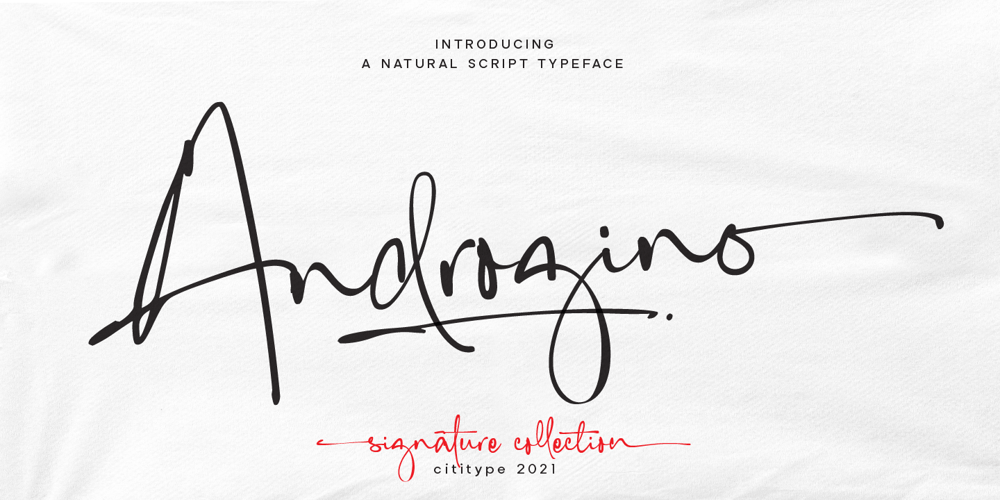
Androgino
Androgino font
Androgino Font Family was designed by Muhammad Ridha Agusni, Siti Saribanon Nurjannah and published by Cititype. Androgino contains 2 styles and family package options. Androgino is a unique handwritten font with deconstruction concept, where each letters connected to others with different spaces and sizes and sometimes overlaps. This font has an abstract ‘dual interpretation’. On the one hand, the unique design of the letters does not have a stylistic tendency. On the other hand, the letters are combined in a unique form when they become sentences. Coupled with several ligatures that add diversity and give a certain surprise and impression when typed. Unique and stand out is the right definition for Androgino. It’s another word of Androgynous, Feminism which is masculine, suitable for all types of branding.